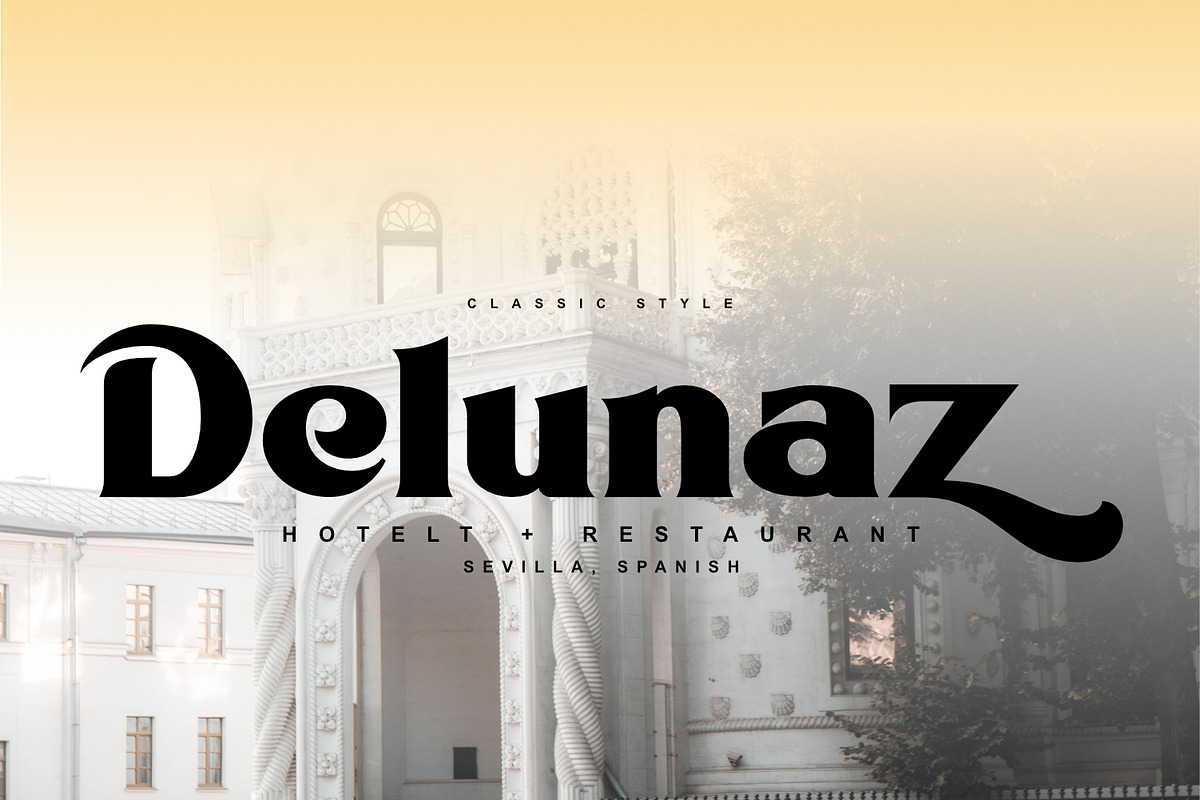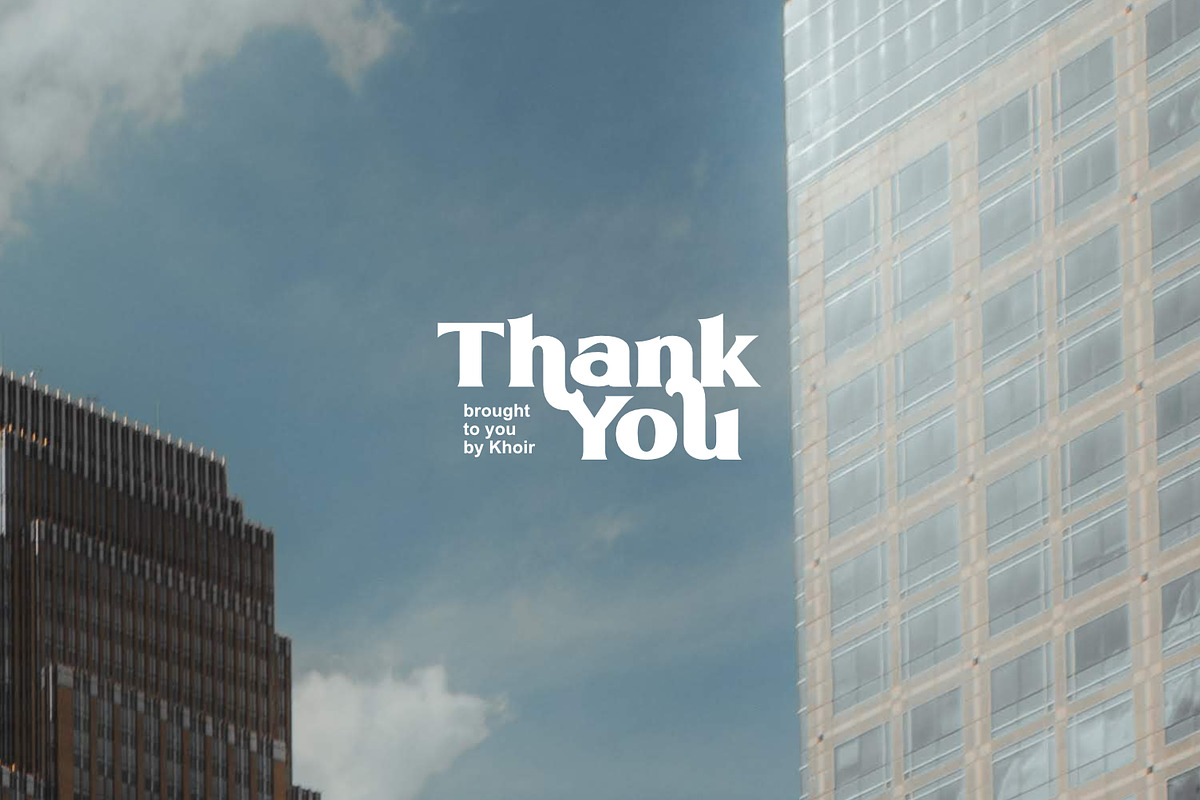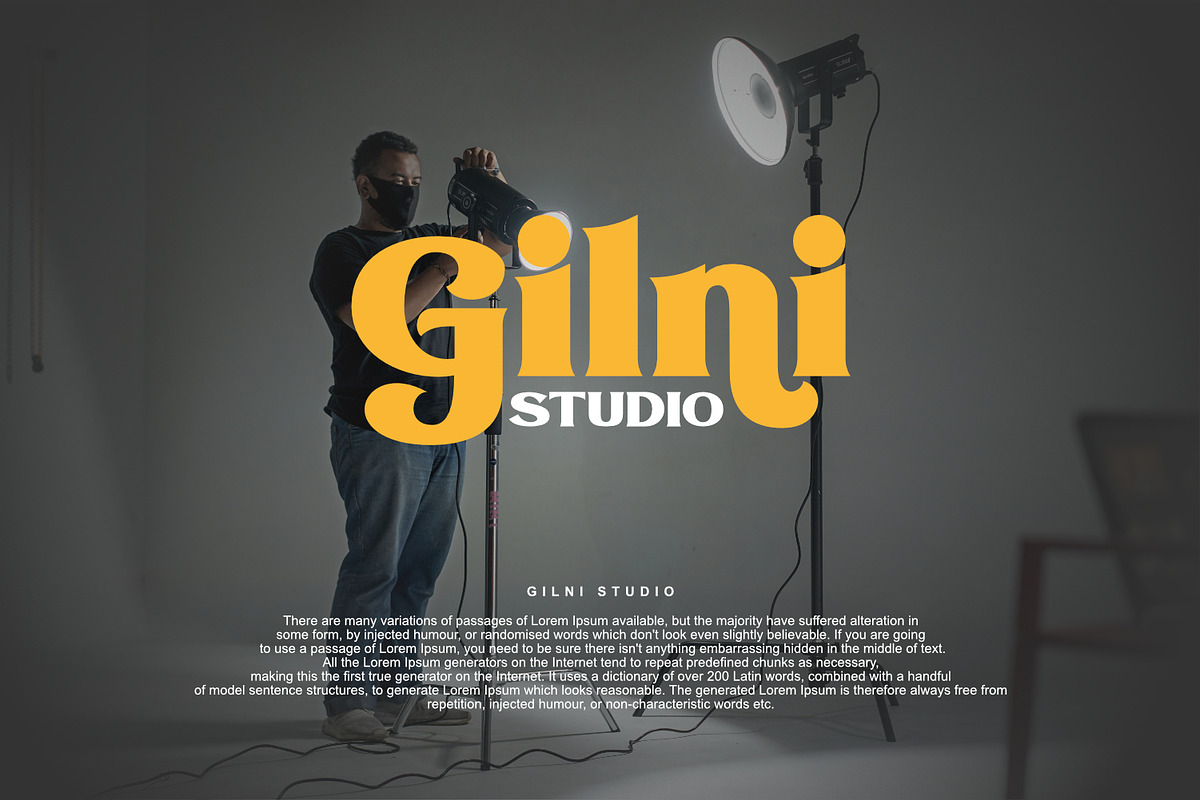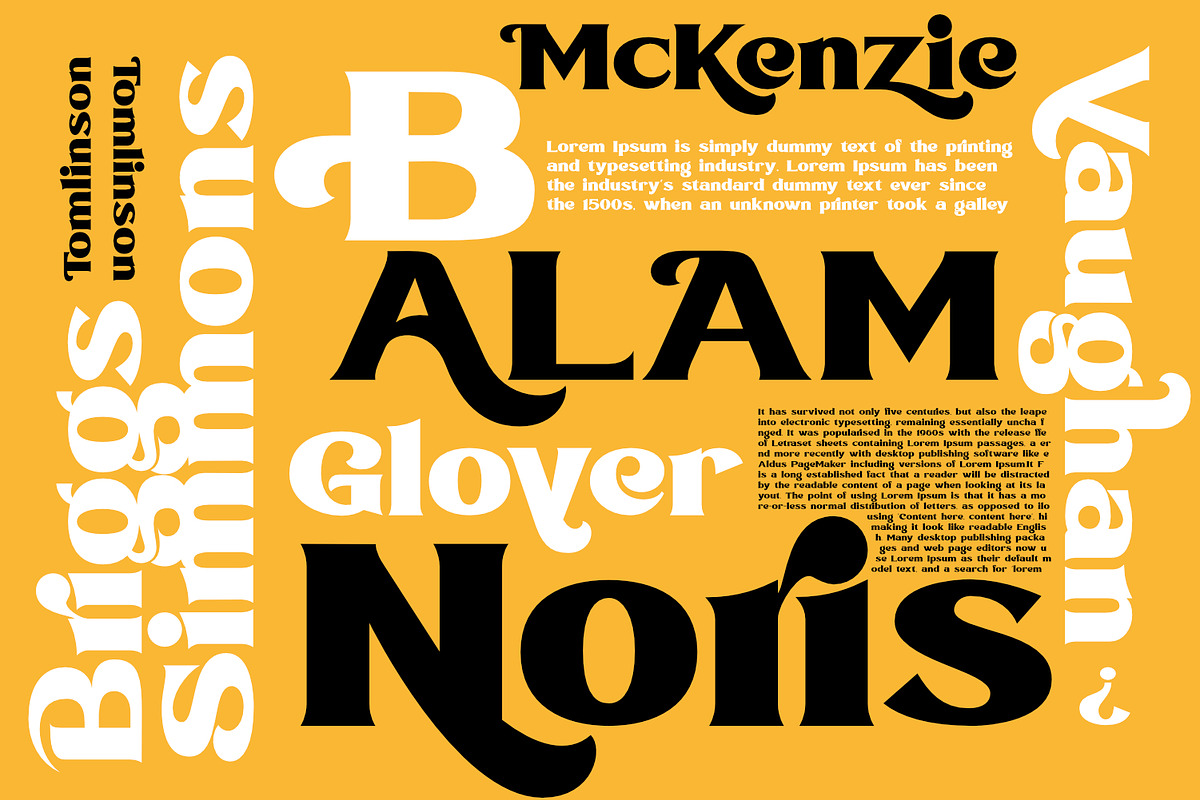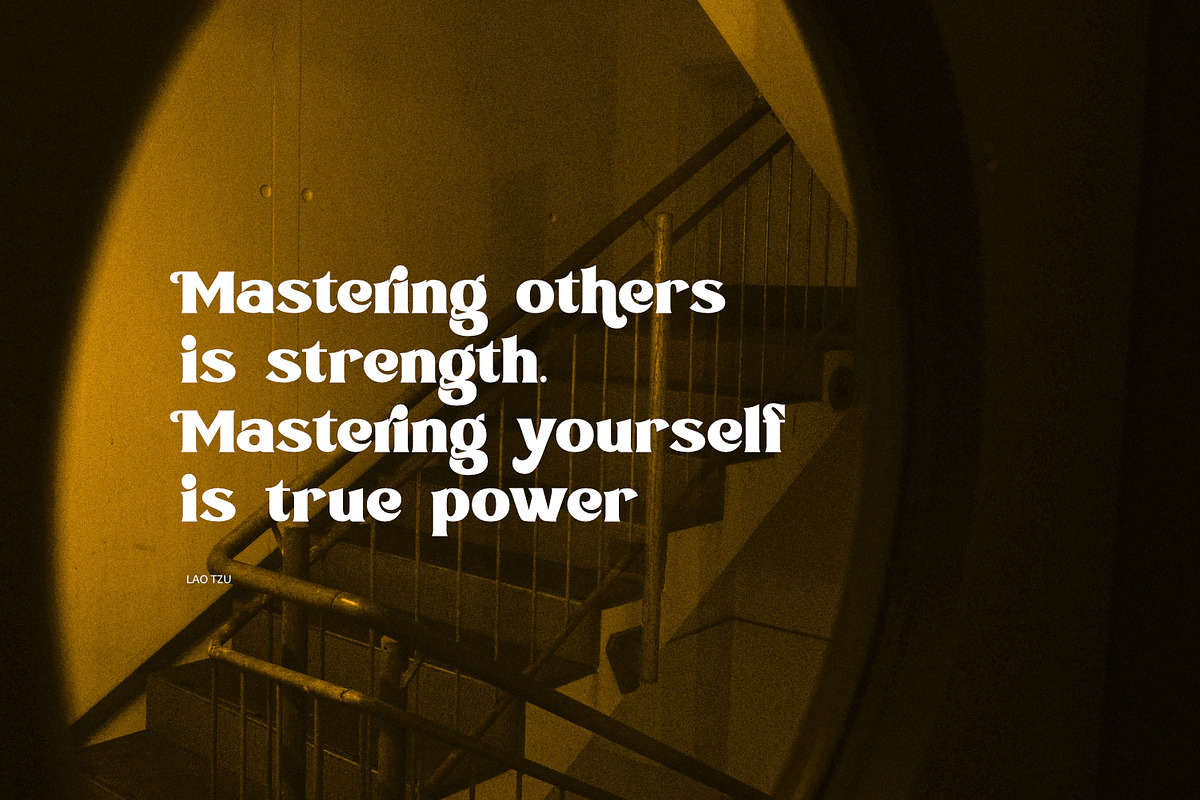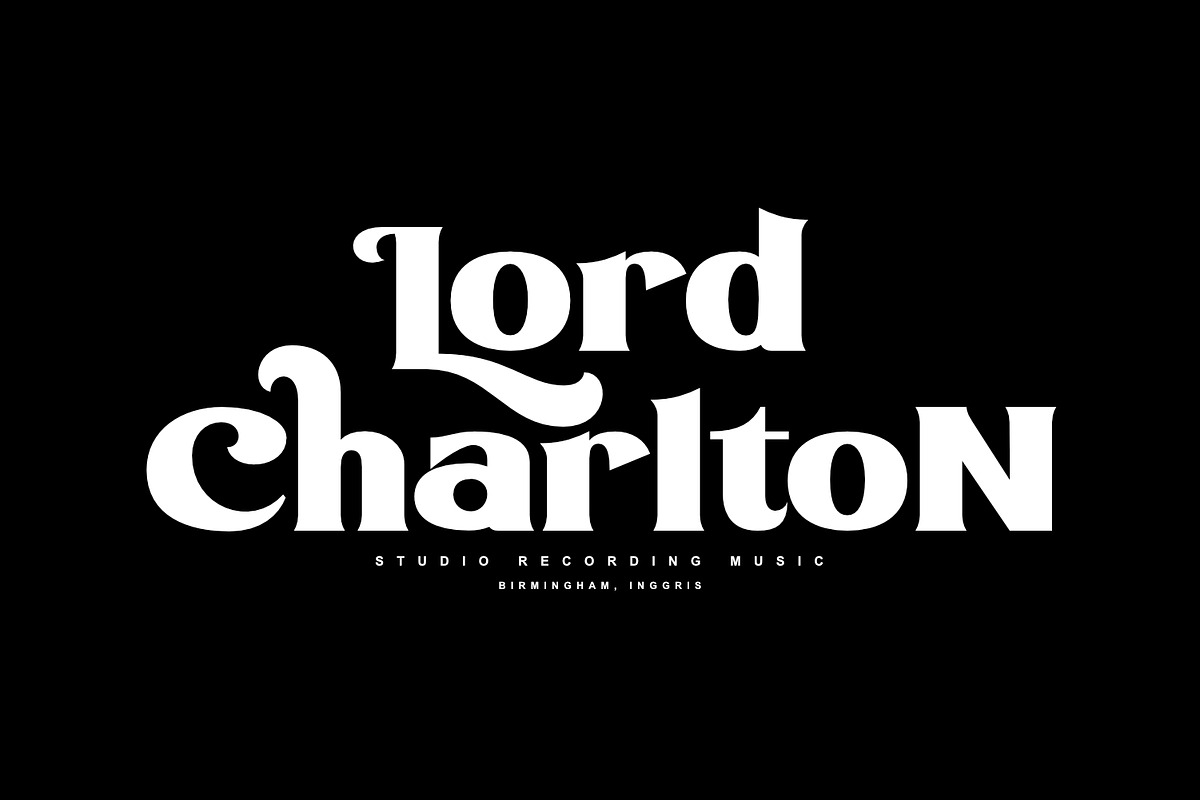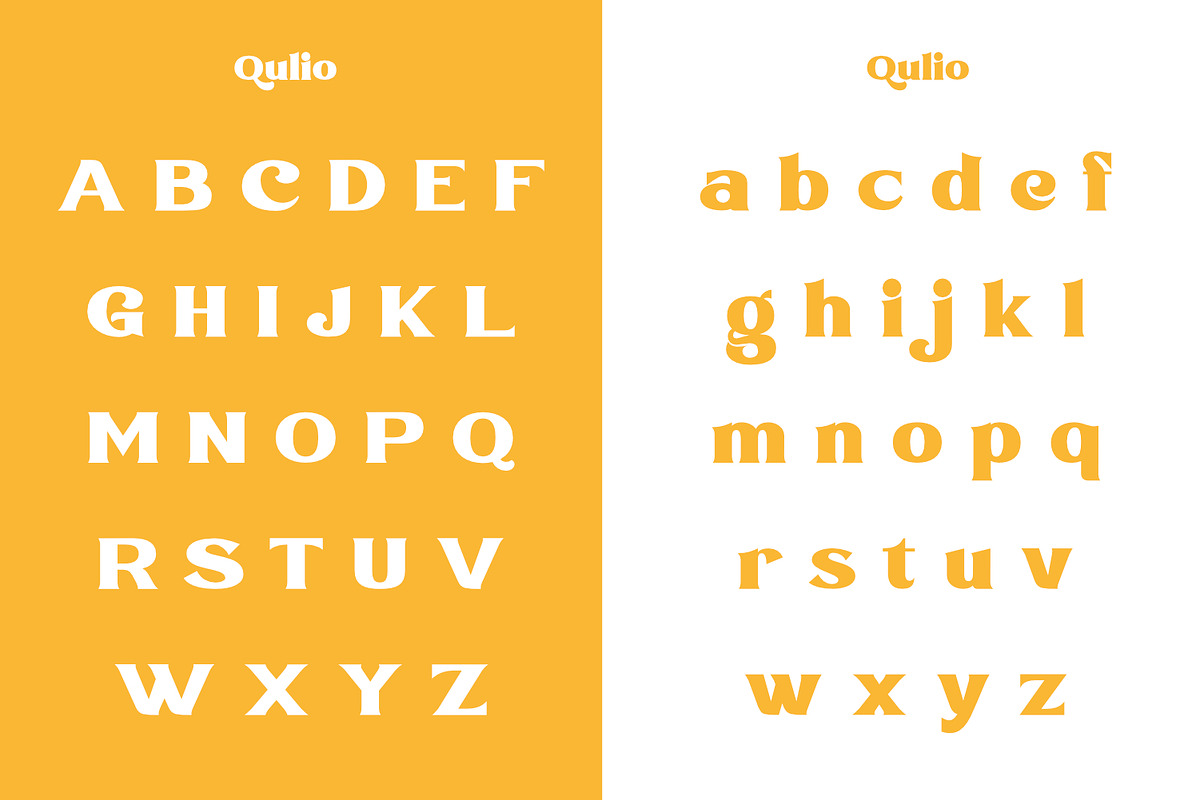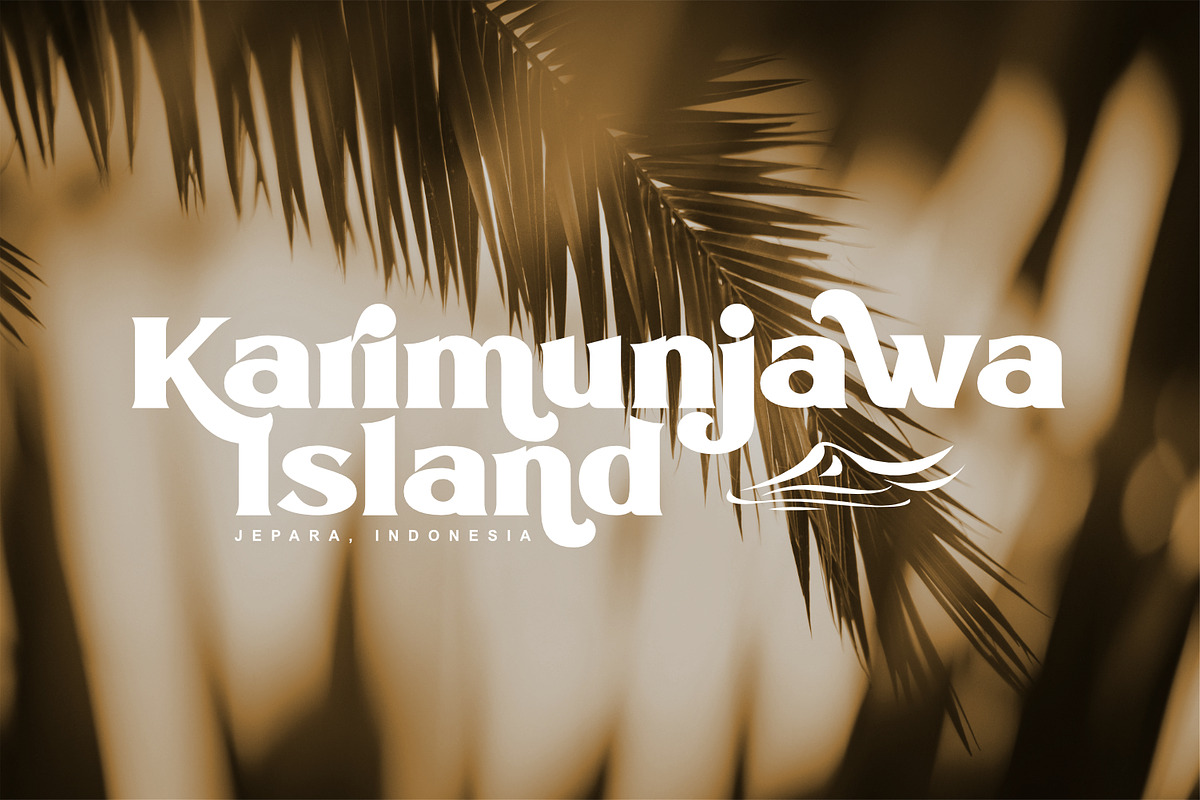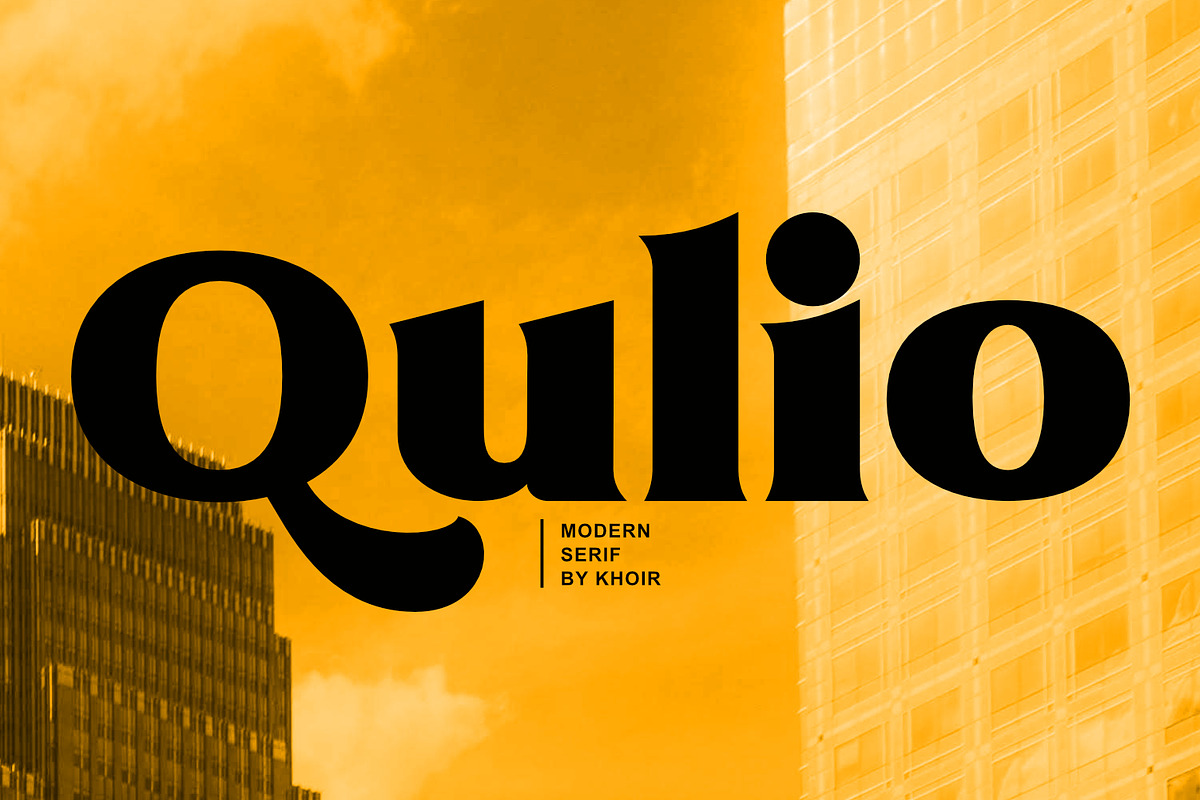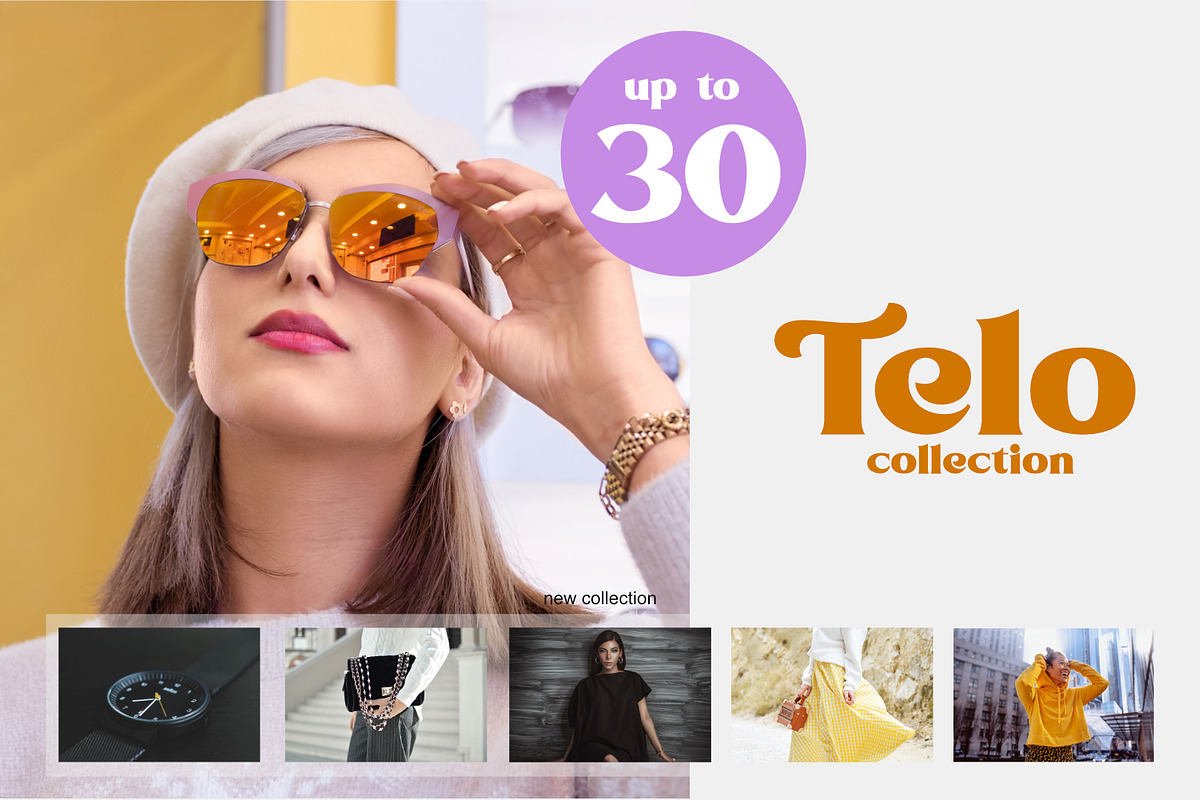
Qulio - Serif Modern
Qulio is a bold serif style font. lifting a groovy style with a touch of modern serif so that it becomes a unique font.
Qulio fits perfectly into modern vintage style. like logos, quotes, greeting cards, posters, branding. They all come with unique shapes and alternative fonts when combined, so what are you waiting for !